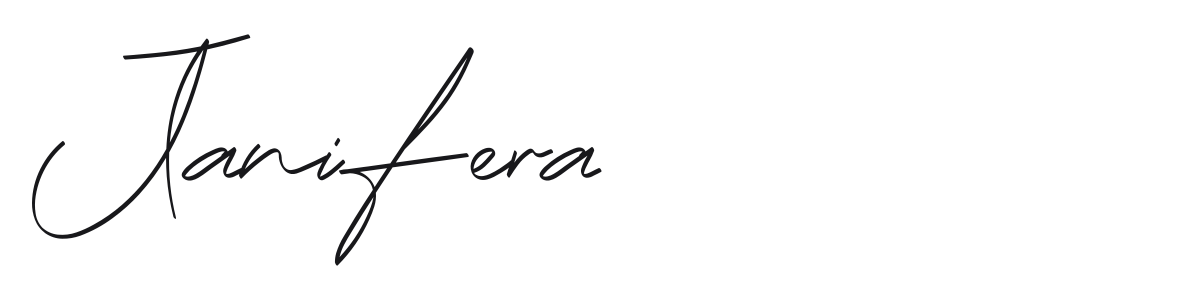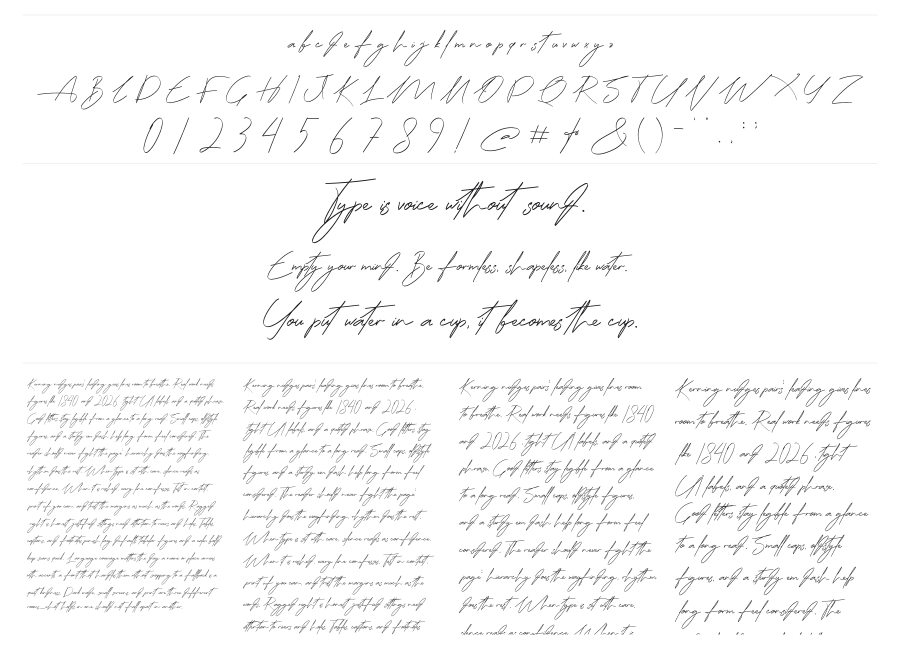
Janifera
Janifera is a contemporary casual script that reads like a confident, unhurried signature. Thin flowing strokes connect into sweeping loops and extended flourishes, giving it an effortless, modern energy. It works well in logos, packaging, and anywhere a personal, handcrafted feel is needed at large sizes.